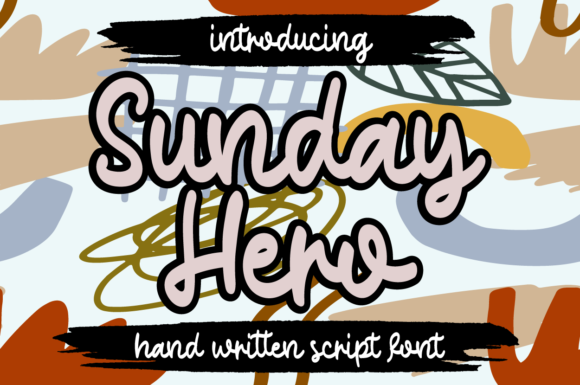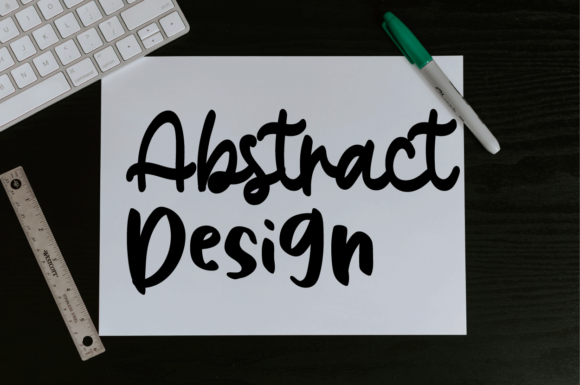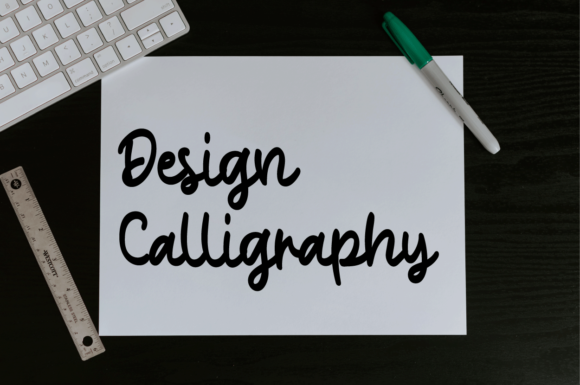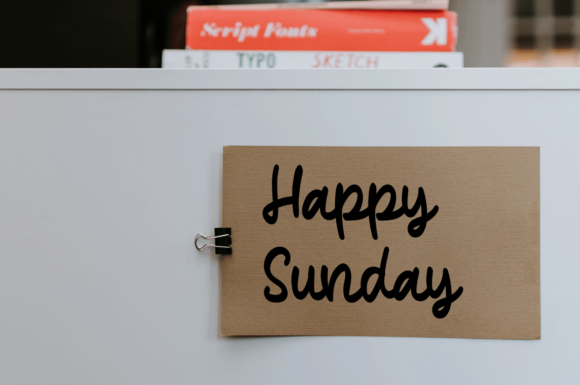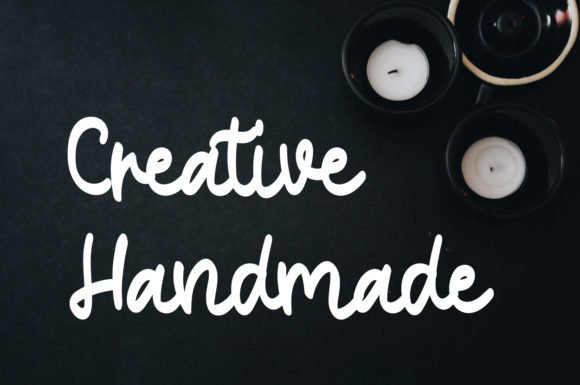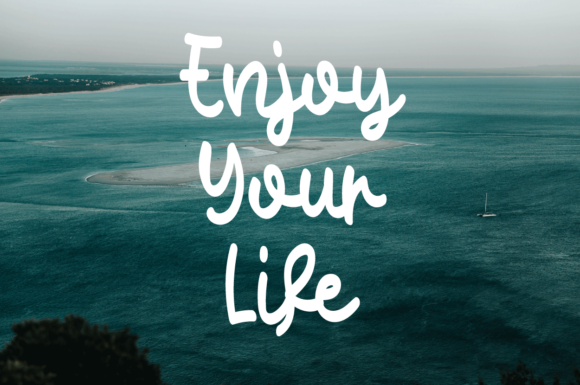
Sunday Hero Font
About Sunday Hero Font
Sunday Hero is a sweet and round lettered script font. Whimsical and a bit quirky, this font will brighten up each of your designs. Add it confidently to your projects, and you will love the results.